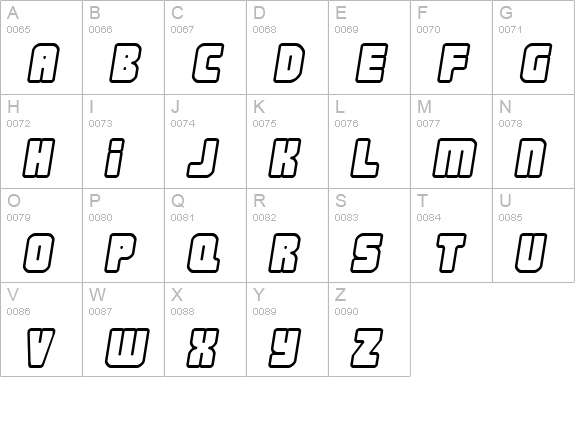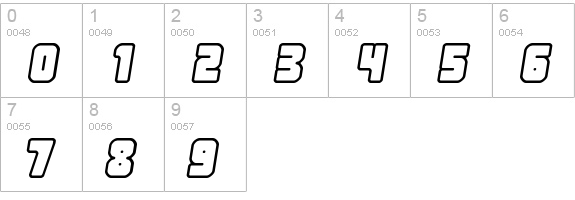
Nonstop italic Font Details
Nonstop italic is a distinctive, italic variant in the Nonstop typeface family \xE2\x80\x94 well suited to design and typography projects.
Introducing Nonstop Italic font, a sleek and modern typeface designed to bring a touch of elegance to your projects. With its stylish slanted design, Nonstop Italic exudes sophistication and charm, making it perfect for branding, editorial design, and more. This font is the perfect choice for those seeking a versatile and eye-catching typeface that can effortlessly elevate any design. Whether you're working on a logo, website, or print materials, Nonstop Italic is sure to make a lasting impression. What's even better is that Nonstop Italic is available for free download at FontsMarket.com, giving you easy access to this stunning font for your creative endeavors. Don't miss out on the opportunity to add this exquisite typeface to your collection today!